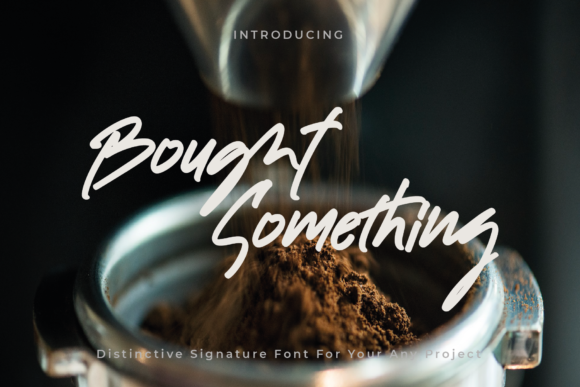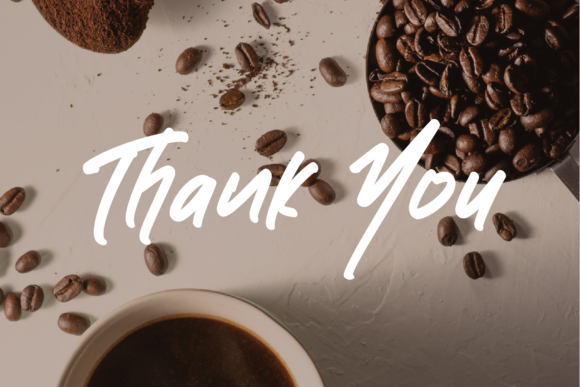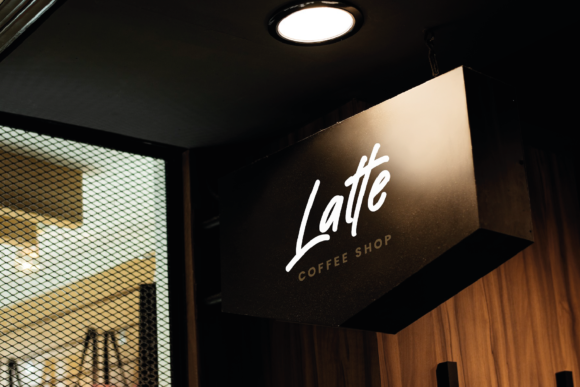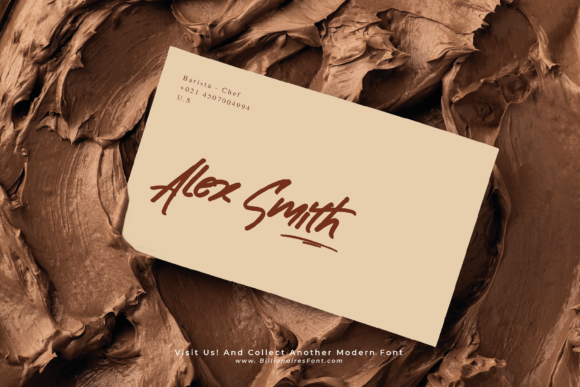
About Bought Something Font
Bought Something is a simple, quirky and adaptable handwritten font. Its informal style and casual vibe will make this font a go-to choice for each of the creations that require a relaxed touch. Bought Something is PUA encoded which means you can access all of the glyphs and swashes with ease!Â